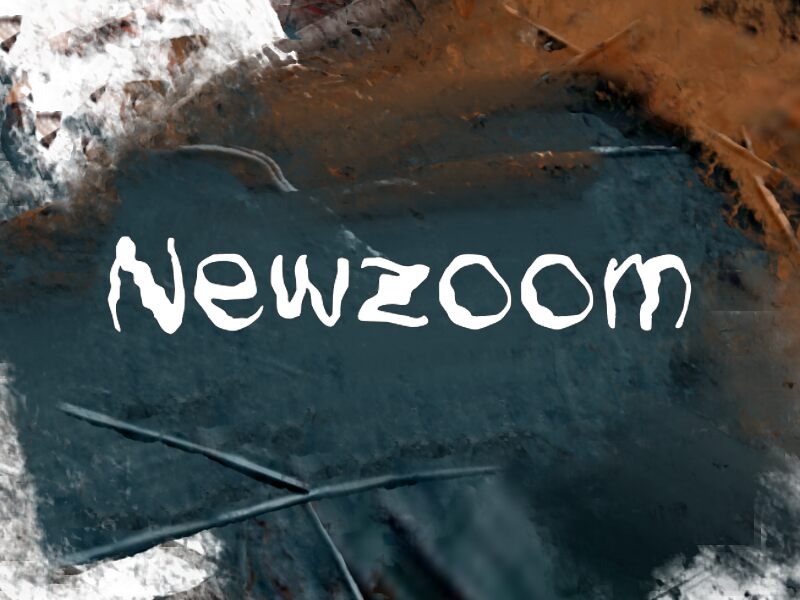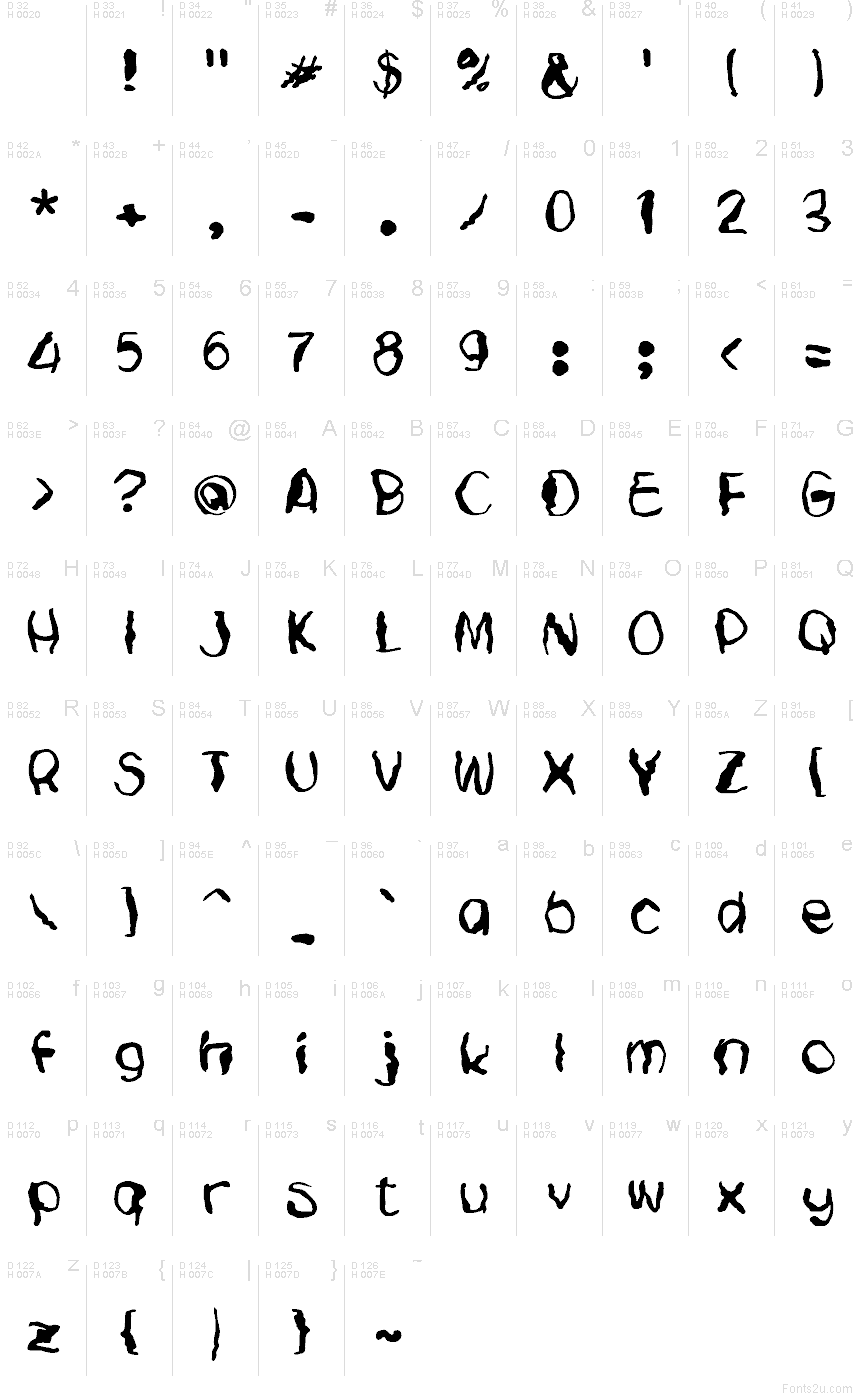
Newzoom
Newzoom font by wepfont.com is a free distorted display typeface that looks like wet ink left to crawl across the page. Each letter feels hand-melted and slightly unstable, with swollen curves and stringy strokes that ooze together just enough to stay legible. It has a raw, organic rhythm that makes even a single word feel like a strange signal or warning rather than plain text.
Using Newzoom, your titles don’t just speak—they seep in. This free font works beautifully for horror posters, experimental music flyers, underground event branding, zines, album covers, and eerie game titles. Keep it big and bold, and pair Newzoom with a simple sans serif for body copy to let its warped energy stay in the spotlight without overwhelming the design.